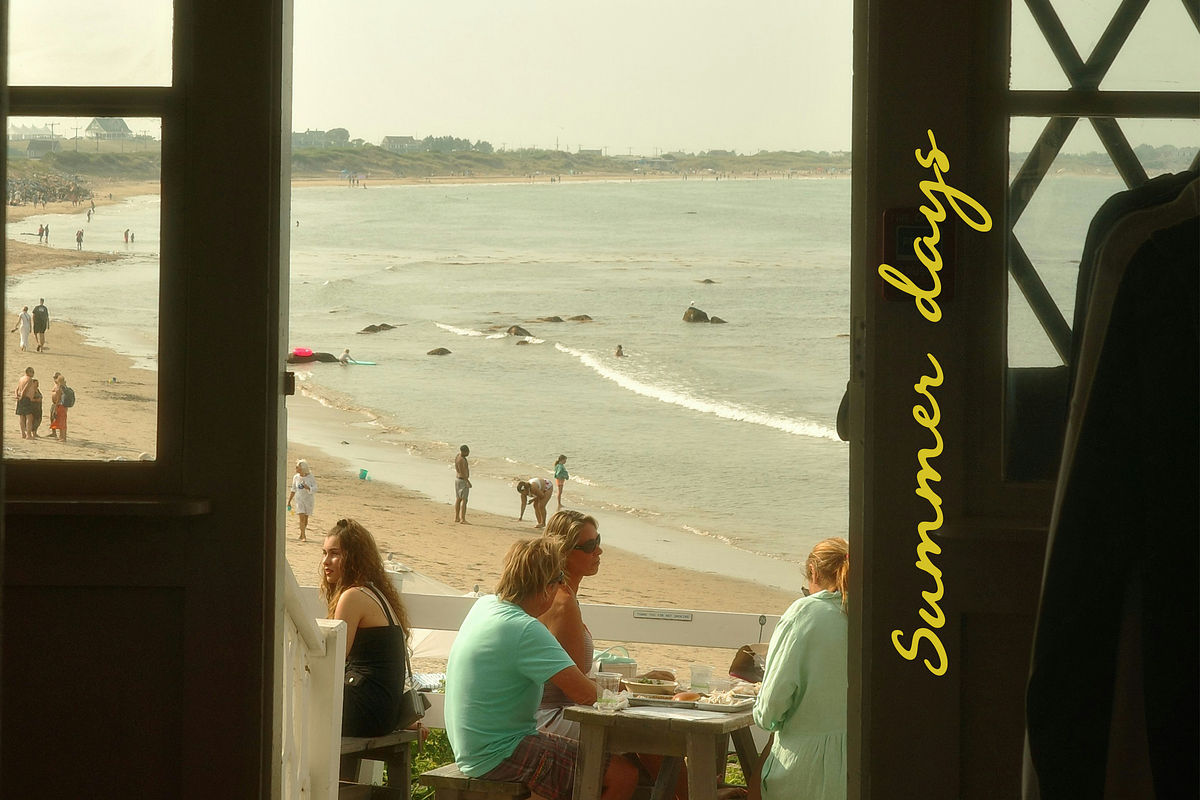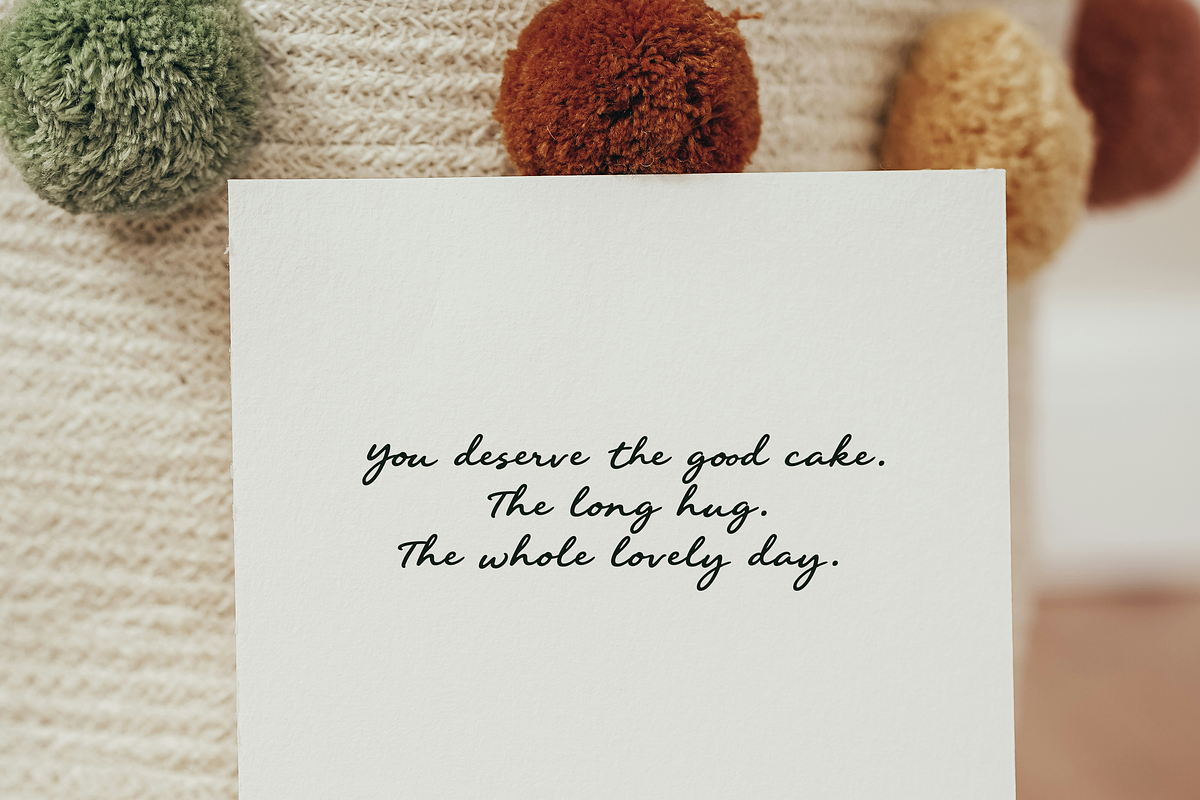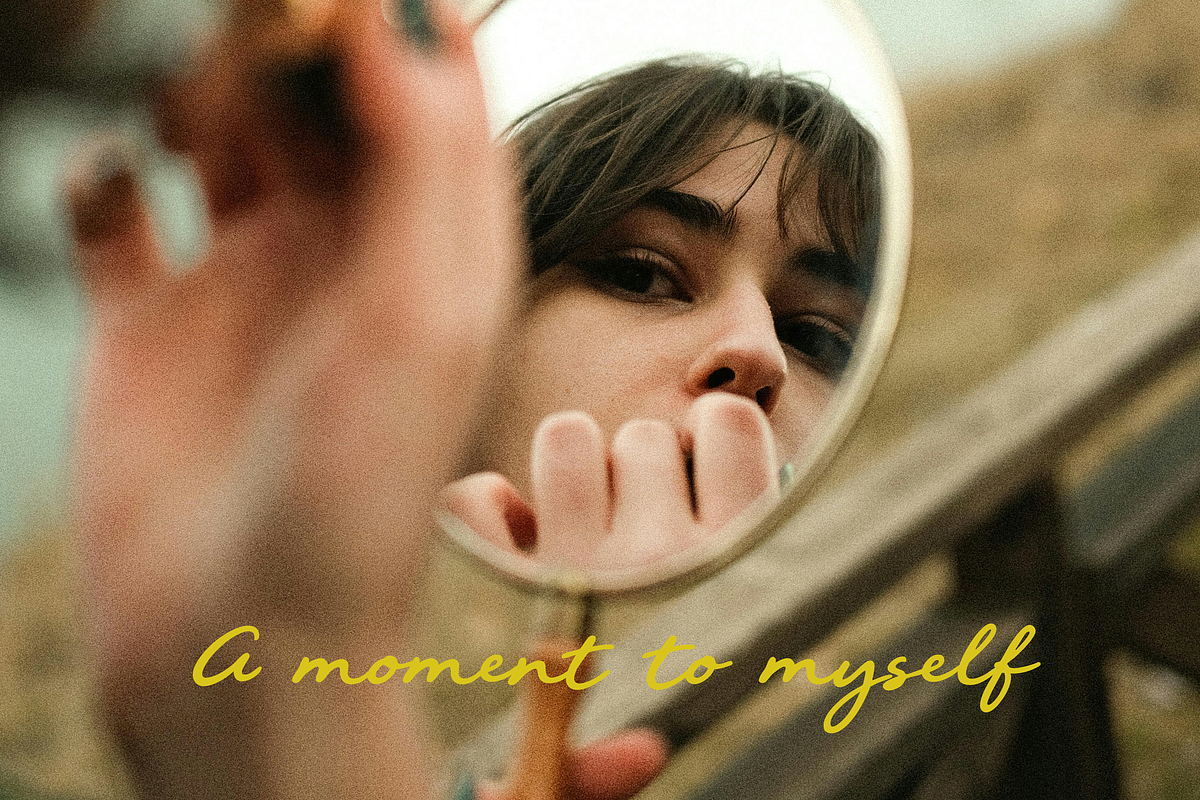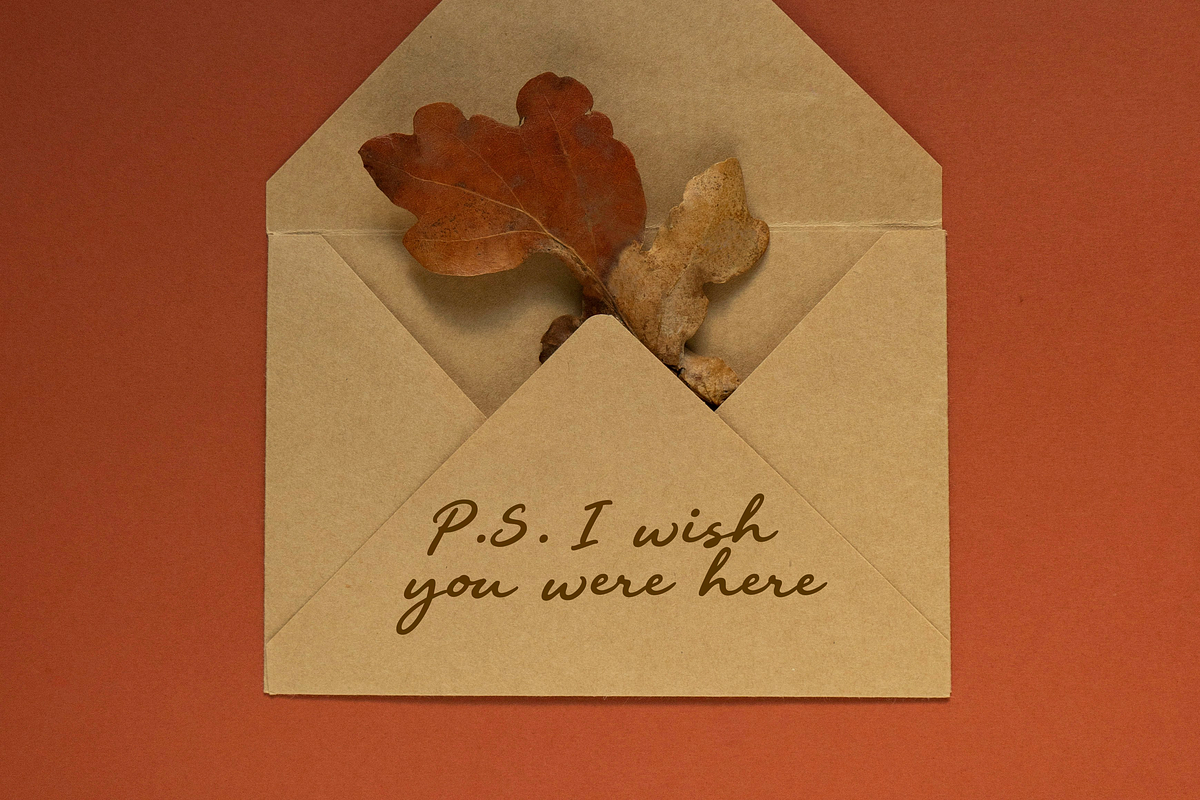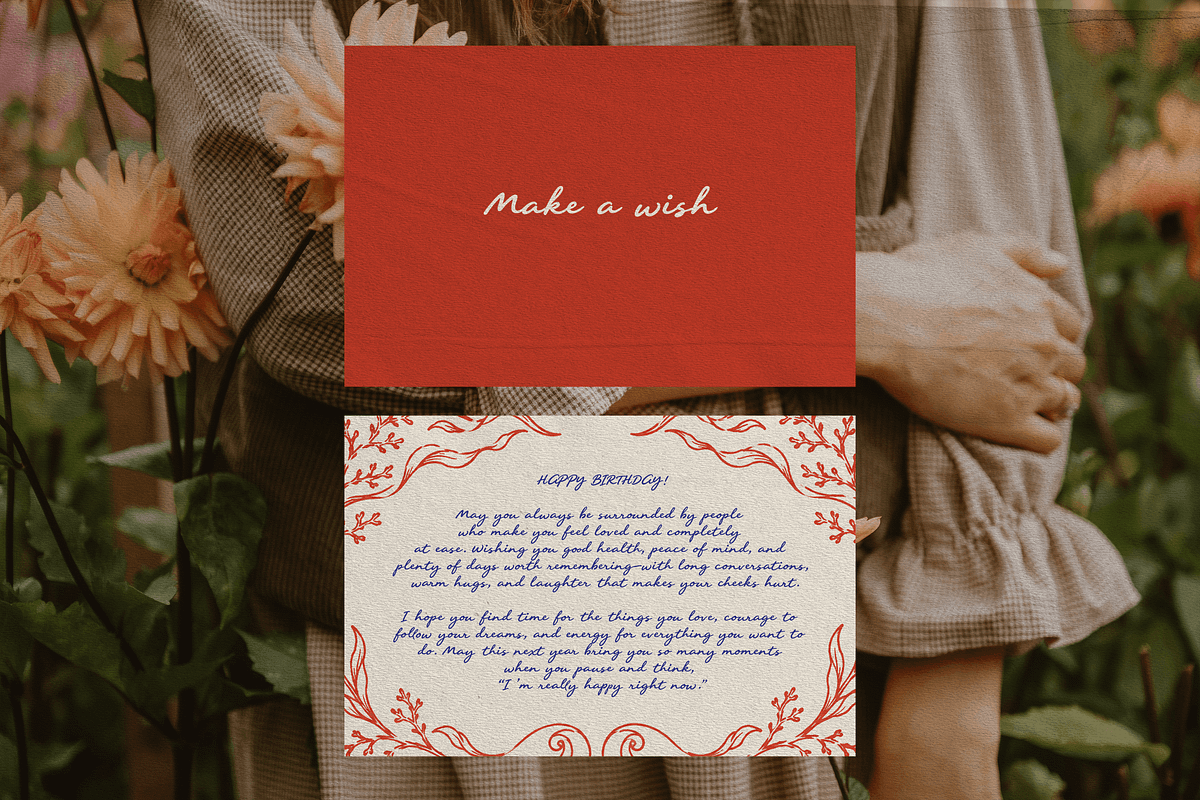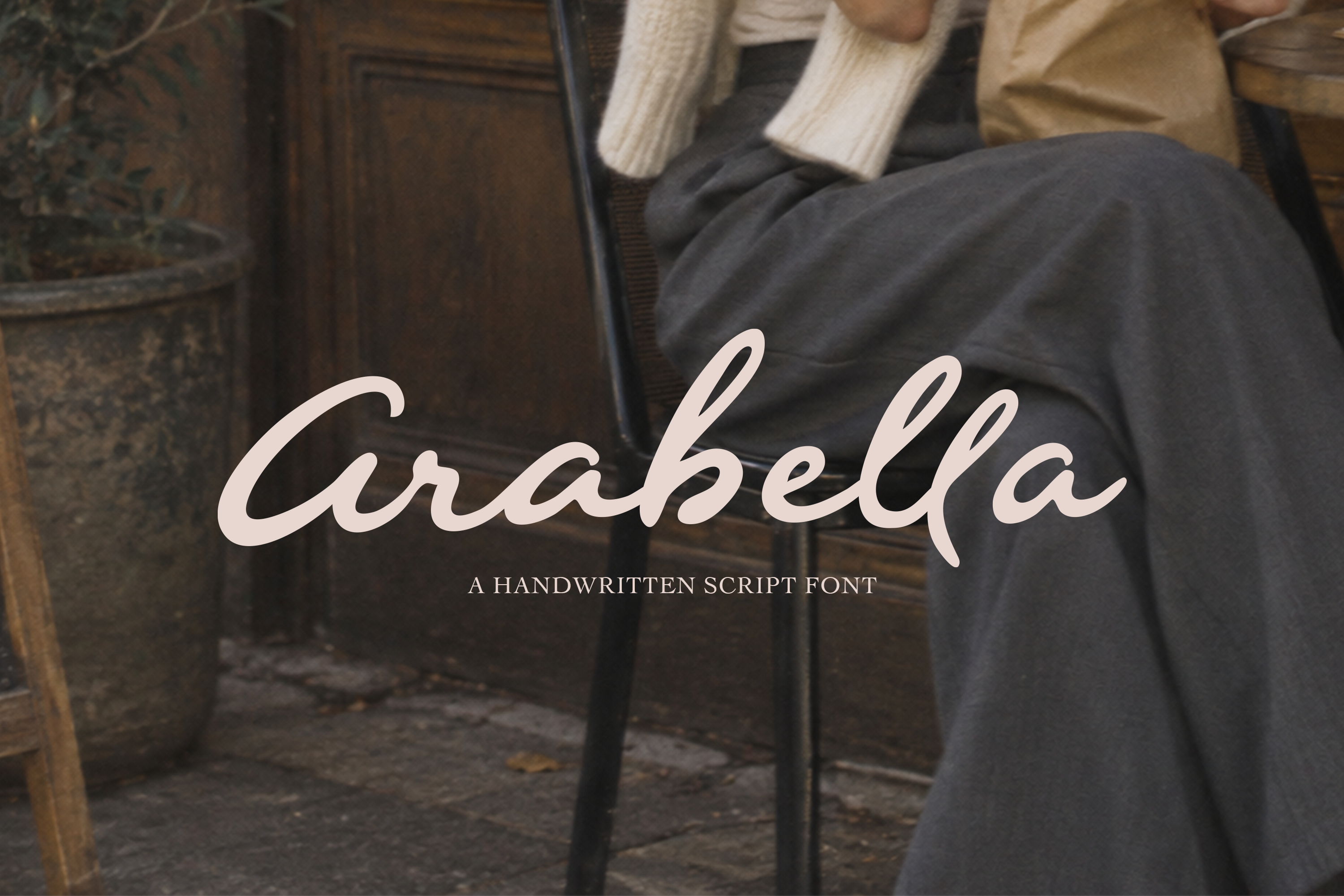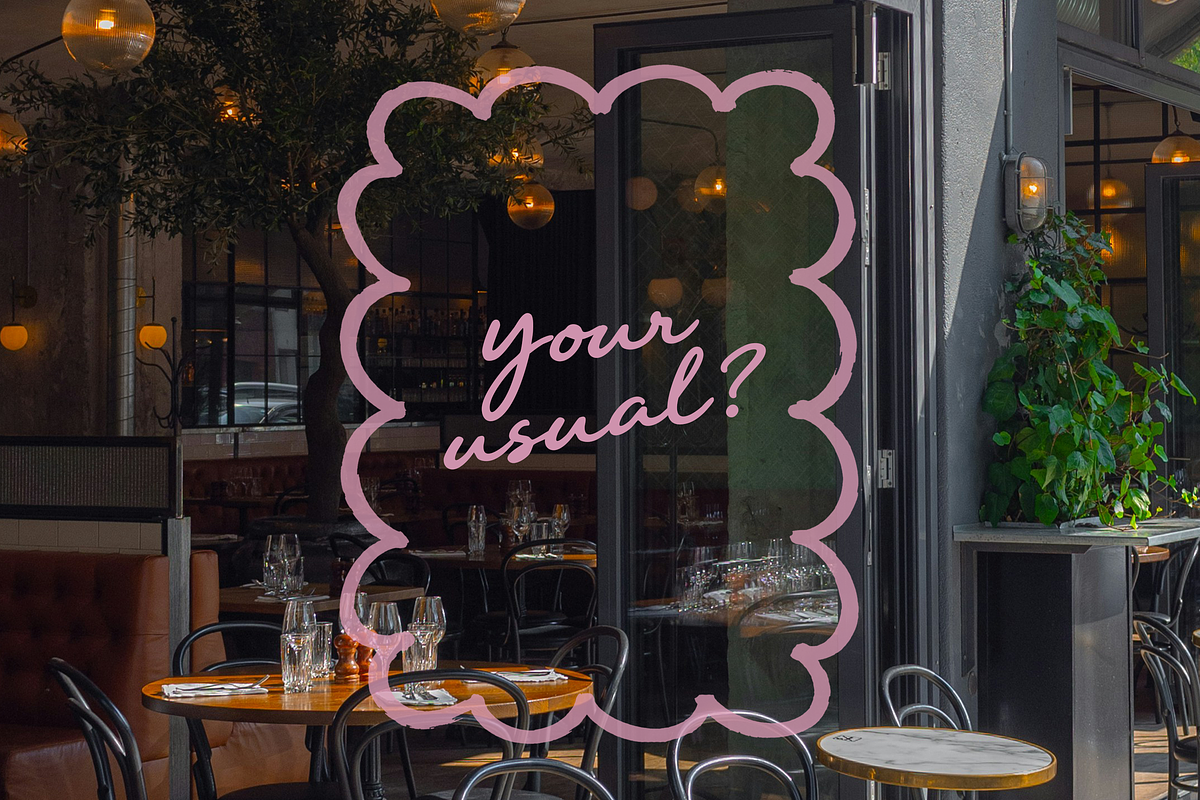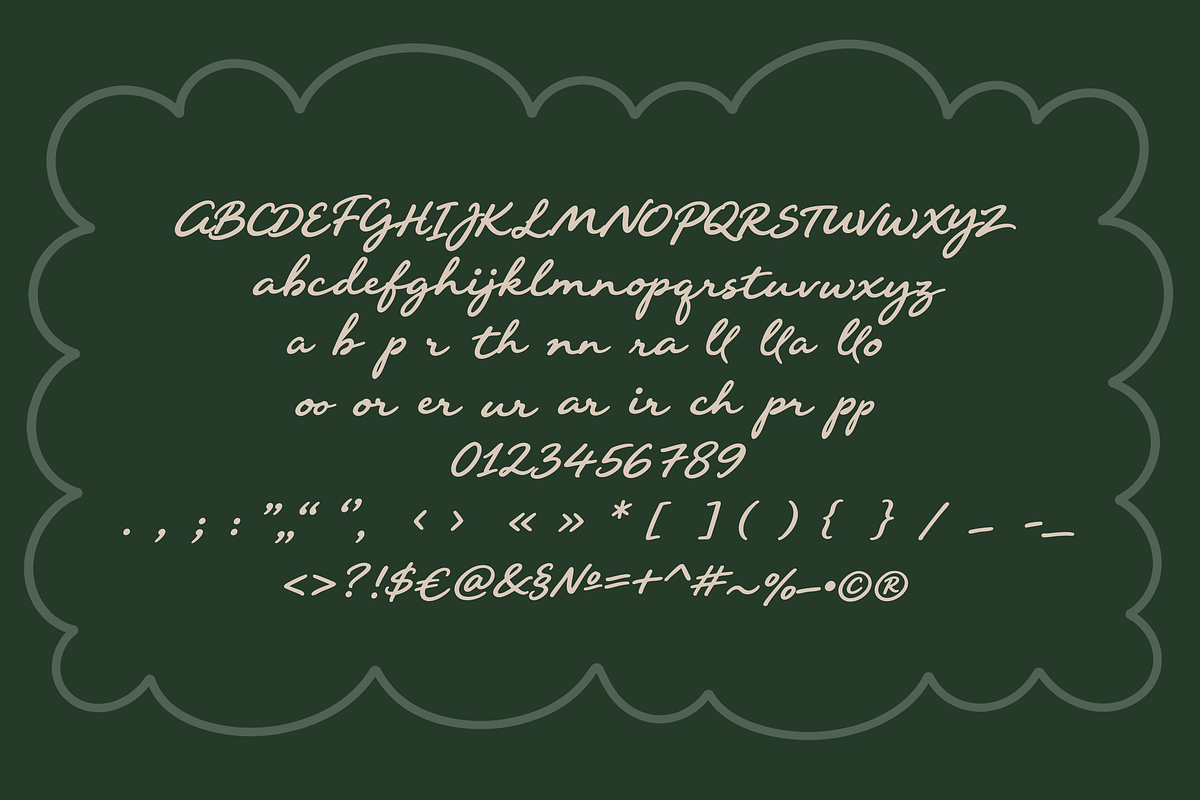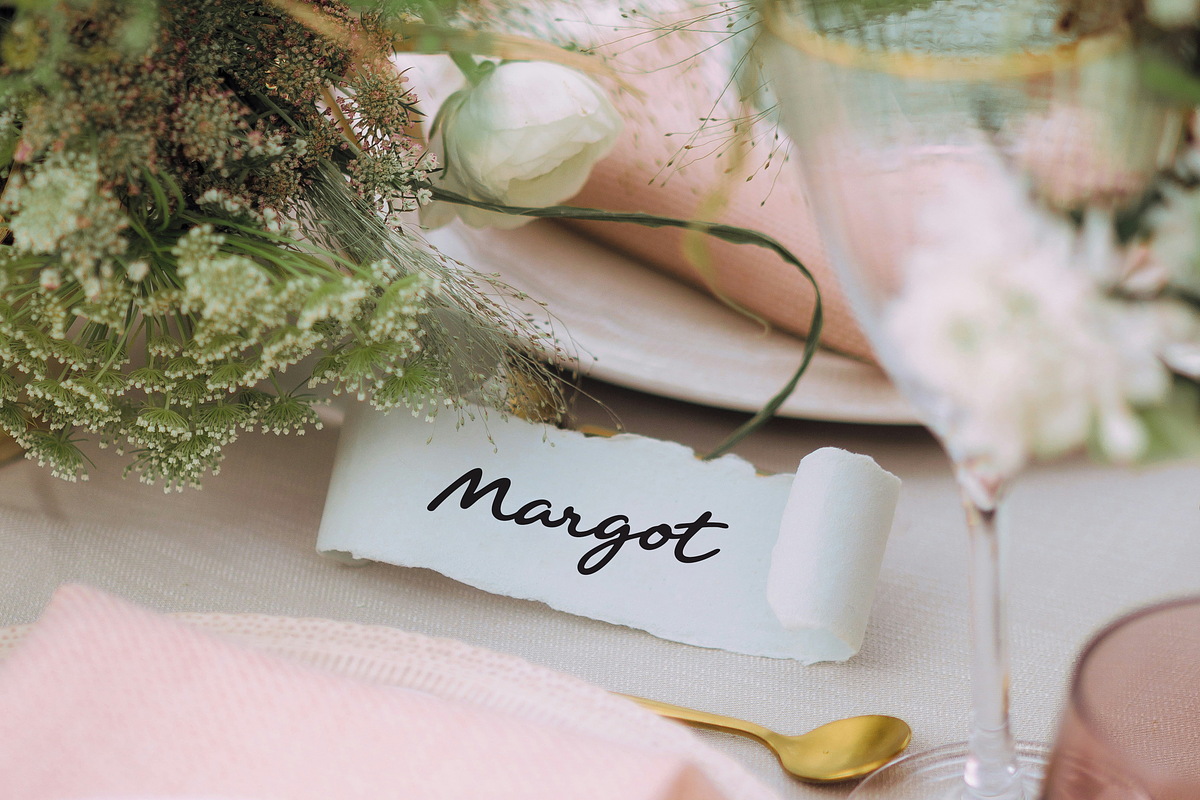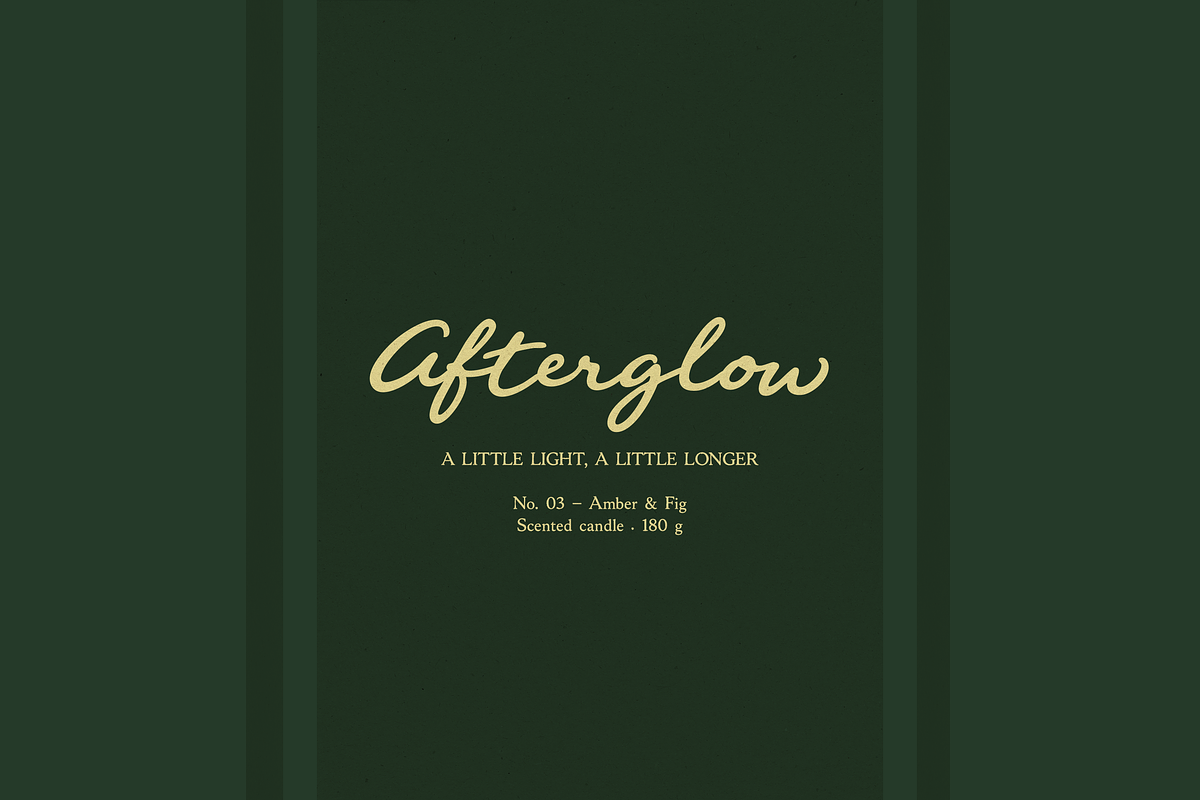
Arabella - Handwritten Script Font
Meet Arabella, a handwritten script font with soft curves, looping letterforms, and an easy, flowing rhythm. It brings the warmth of a personal note to café branding, packaging, invitations, and everyday messages.
Arabella feels relaxed and expressive, with enough presence to stand on its own. Use it for a name on a place card, a few words on a coffee cup, or a headline across a favorite photograph. Its connected lowercase letters and distinctive capitals give short phrases a personal touch.
A lovely fit for: • Café and boutique branding • Product labels and packaging • Wedding invitations and place cards • Birthday cards and personal stationery • Editorial headlines and photo captions • Journals, scrapbooks, and social media graphics
Pair Arabella with a simple sans serif for a casual look, or a classic serif for a more understated finish.